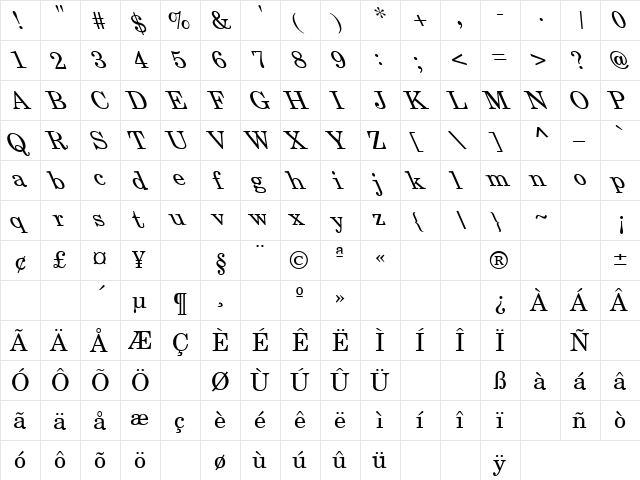
Adam's Apple 12 Regular
Design Context for Adam's Apple 12 Typeface
Adam's Apple 12 offers clean, dependable letterforms without strong stylistic allegiance, making it a practical choice for designers who need flexibility.
Pro Tip: Use Adam's Apple 12 in both headline and body roles to test its range before committing to a single application.